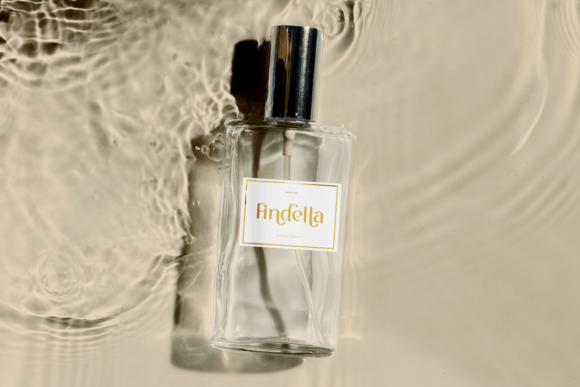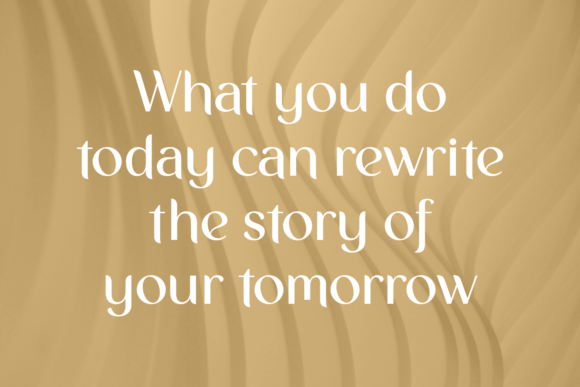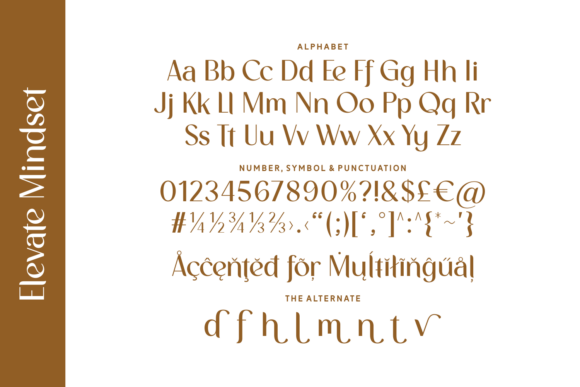
Introducing Elevate Mindset Font: The Epitome of Elegance and Sophistication
In the realm of typography, few fonts manage to strike a balance between style, elegance, and versatility. However, the Elevate Mindset font stands out as a beacon of chic sophistication, designed to elevate your visual projects to unprecedented heights. This article delves into the intricacies of the Elevate Mindset font, exploring its unique characteristics, and the myriad of ways it can be utilized to enhance your branding, packaging, and overall visual identity.
The Essence of Elevate Mindset Font
Elevate Mindset is a sans serif font that defies the conventional norms of simplicity associated with its category. Instead, it boasts fashionable curves and an editorial charm that sets it apart. The high contrast strokes and sophisticated details infused into its design make it an ideal choice for projects that demand a touch of luxury and refinement.
Key Features of Elevate Mindset
- High Contrast Strokes: The font’s high contrast strokes add a layer of sophistication, making it perfect for applications where elegance is paramount.
- Sophisticated Details: Every detail in the Elevate Mindset font is meticulously crafted to ensure that it exudes a sense of luxury and refinement.
- Chic and Expressive: The font’s design is not only stylish but also highly expressive, allowing for a wide range of applications from beauty branding to modern packaging.
Ideal Applications for Elevate Mindset Font
The versatility of the Elevate Mindset font makes it suitable for various projects, including:
- Beauty Branding: The font’s elegant and sophisticated design makes it a perfect fit for beauty brands looking to establish a luxurious identity.
- Wellness Logos: For wellness and health-related businesses, the Elevate Mindset font offers a clean yet stylish look that communicates serenity and professionalism.
- Social Quotes: The expressive nature of the font makes it ideal for highlighting inspirational quotes on social media, adding a touch of class to your posts.
- Modern Packaging: Elevate your product packaging with a font that speaks of luxury and sophistication, ensuring your product stands out on the shelves.
Elevating Your Visuals
Incorporating the Elevate Mindset font into your design projects is a straightforward process to significantly enhance your visual identity. Here are some tips on how to make the most of this elegant typeface:
- Pair with Neutral Backgrounds: Allow the font’s sophistication to shine by pairing it with neutral or minimalist backgrounds.
- Experiment with Colors: While the font itself is a statement piece, experimenting with complementary colors can further elevate its appearance.
- Use in Headlines and Titles: The Elevate Mindset font is perfect for headlines and titles where you want to make a strong visual impact.
The Elevate Mindset font is more than just a typeface; it’s a design statement that speaks of elegance, sophistication, and a keen sense of style. Whether you’re a designer looking to offer your clients something unique, a craftsperson aiming to elevate your brand, or simply someone with a passion for typography, the Elevate Mindset font is an invaluable resource. By incorporating this chic and expressive sans serif font into your projects, you’re not just choosing a font; you’re embracing a visual identity that breathes luxury and refinement.
So, why settle for ordinary when you can elevate your visuals to extraordinary heights with the Elevate Mindset font? Explore its potential today and witness the transformation it brings to your designs.